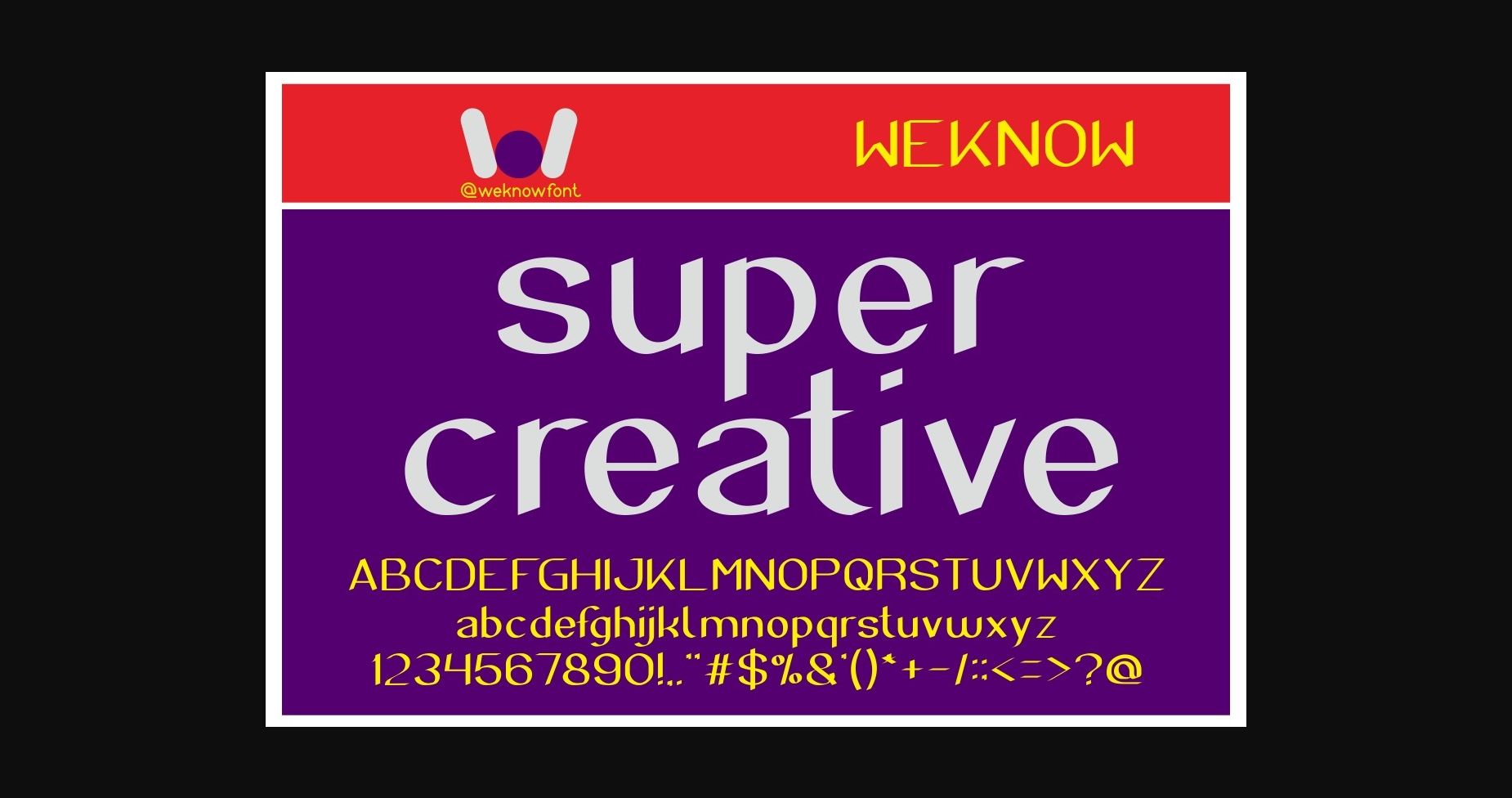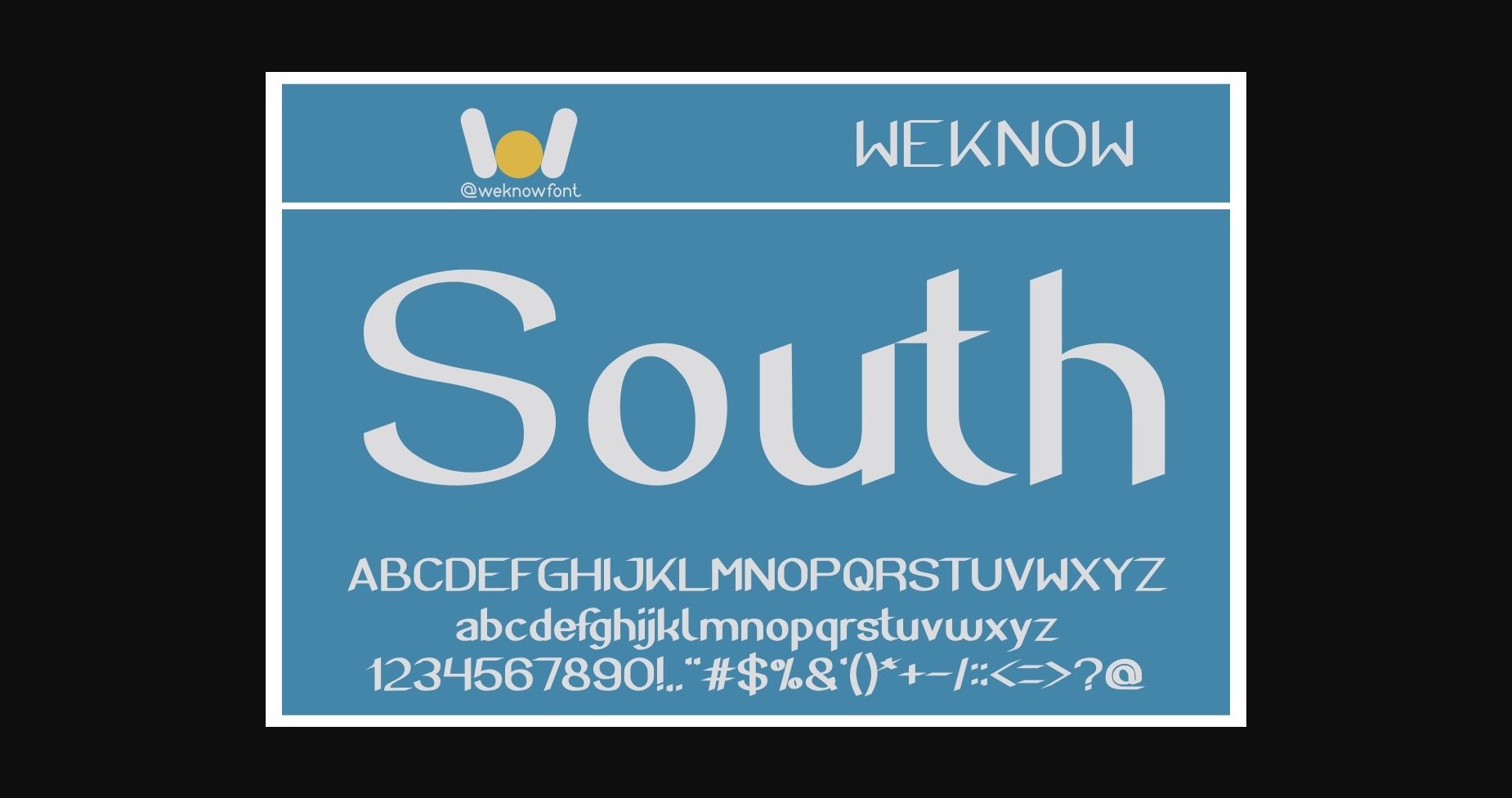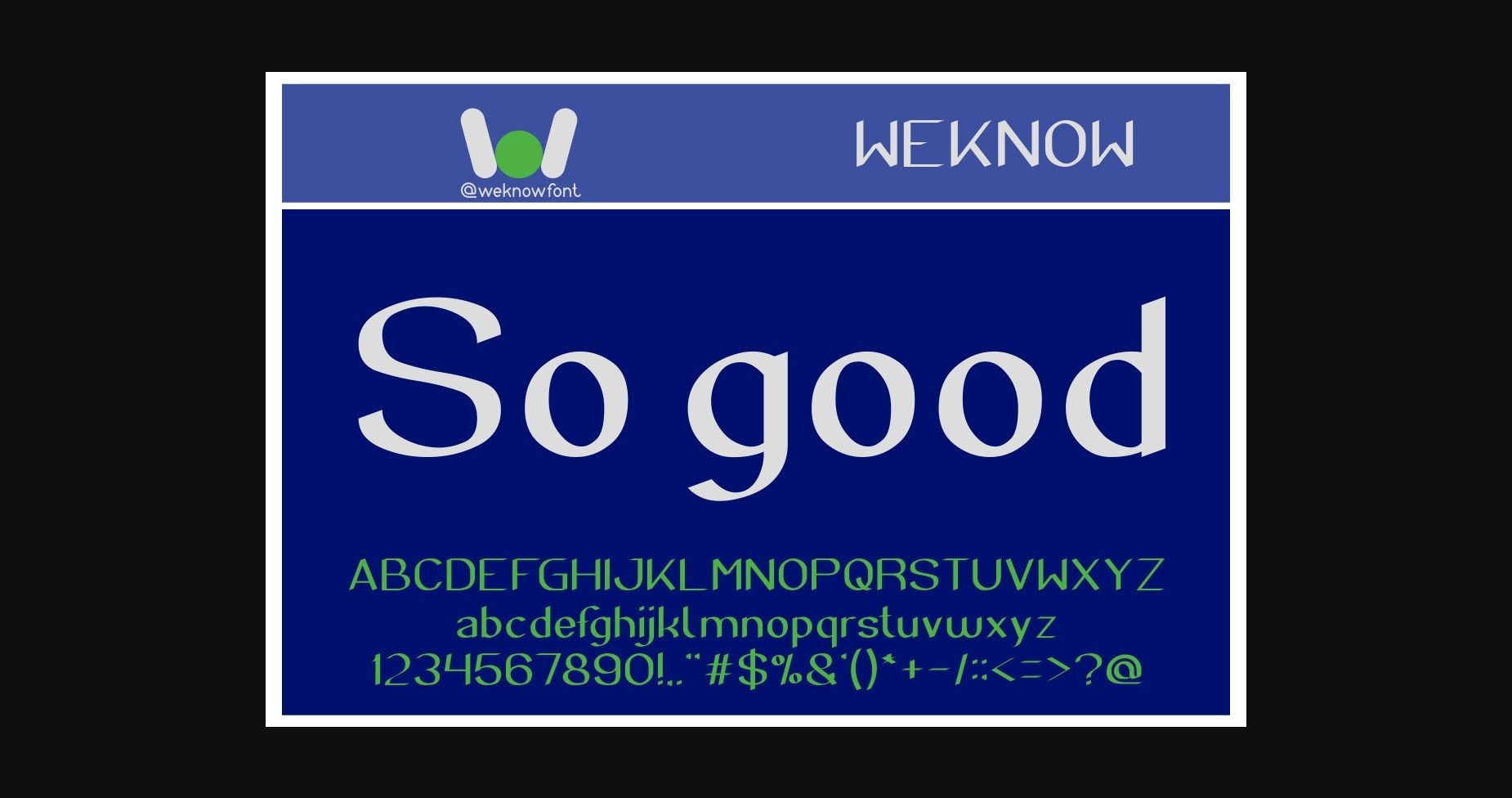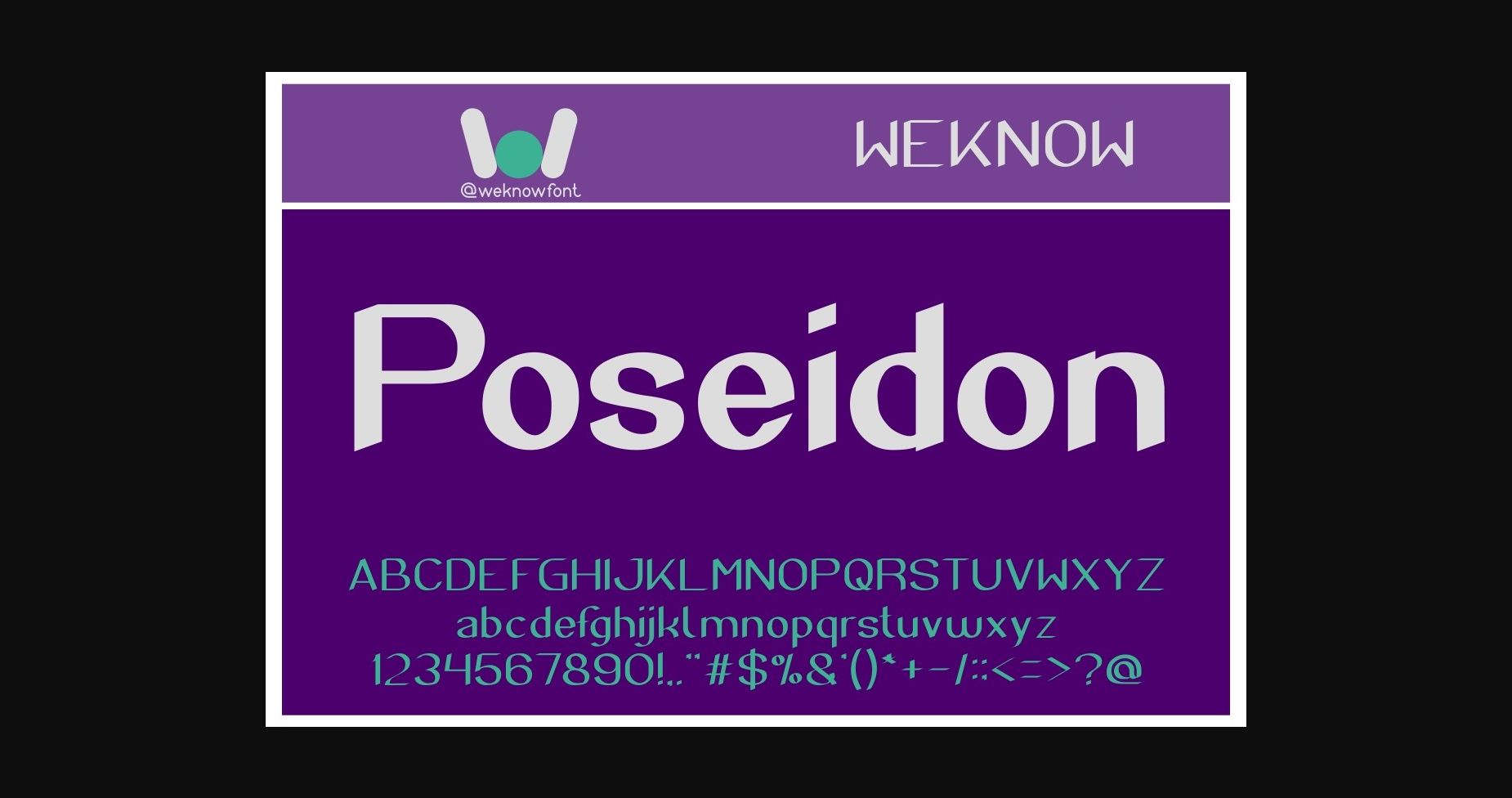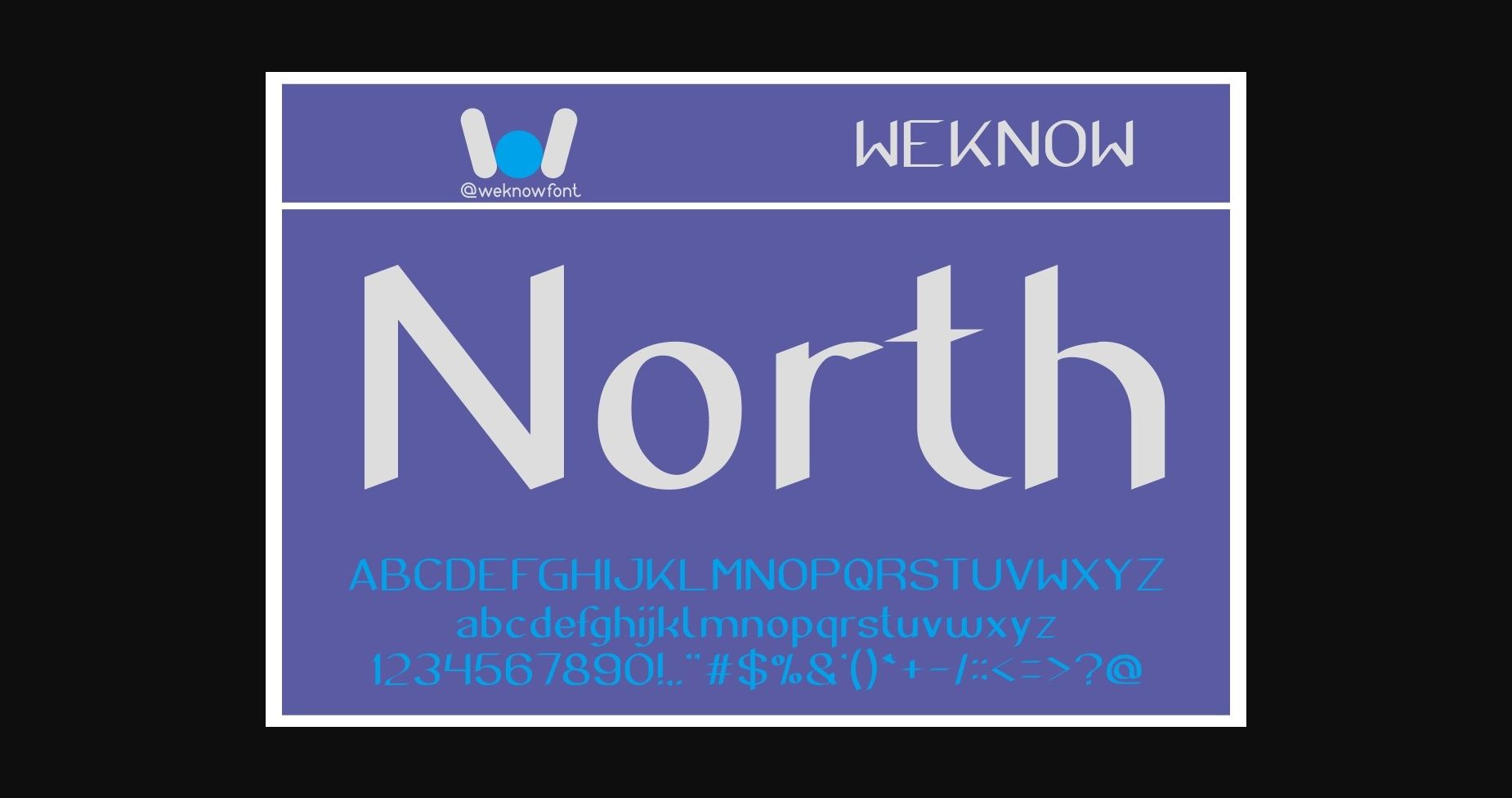
HomeSans Serif FontsSuper Creative Font Sans Serif Fonts Super Creative Font FacebookXPinterestWhatsApp 1 of 7 ... Super Creative Font Poster 2... Super Creative Font Poster 3... Super Creative Font Poster 4... Super Creative Font Poster 5... Super Creative Font Poster 6... Super Creative Font Poster 7... About Super Creative Font Super Creative is a cool and adaptable sans serif font. It is suitable for logos, headlines in corporate identity, brand identity, apparel industry, posters and so much more. DOWNLOAD NOW People also explored Rosemate Font Erlang Font Galvin Font Allagia Font Michel Elisha Script Bethanien Font Cornerstone Font Maheisa Font Bampton Font 451 0 TagsSuper Creative Font Previous articleReoxi FontNext articleGolden Bless Font LEAVE A REPLY Cancel reply Comment: Please enter your comment! Name:* Please enter your name here Email:* You have entered an incorrect email address! Please enter your email address here Website: Save my name, email, and website in this browser for the next time I comment. Personal Use Free Good Times Personal Use Free Read more about this font Aliqa Personal Use Free Read more about this font Delions Personal Use Free Read more about this font Propaniac Personal Use Free Read more about this font BLOG Using Fonts in Digital Marketing: Tips to Strengthen Your Brand Identity In the realm of digital marketing, every visual element plays a crucial role in shaping a brand's identity, and fonts are no exception. The... Free Fonts Risk: Why Free Fonts Can Be Dangerous for Designers To increase your work productivity, choose the most readable fonts. Where to Buy American Fonts Online in 2024